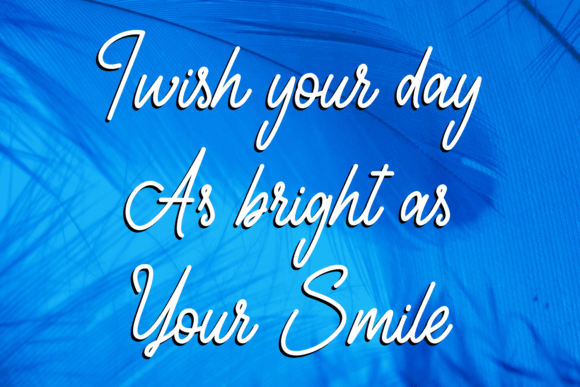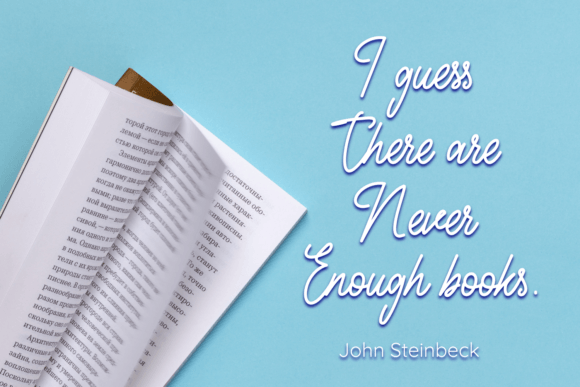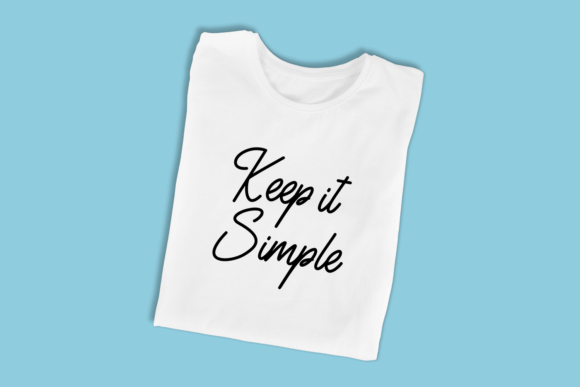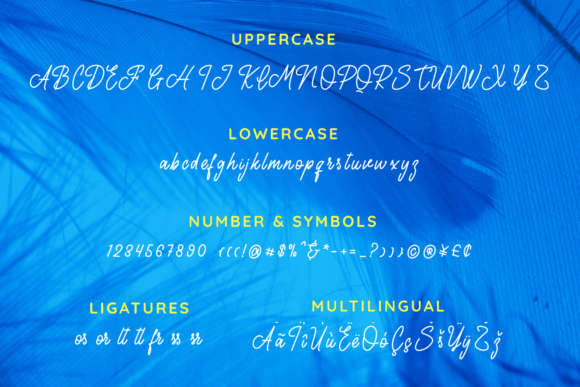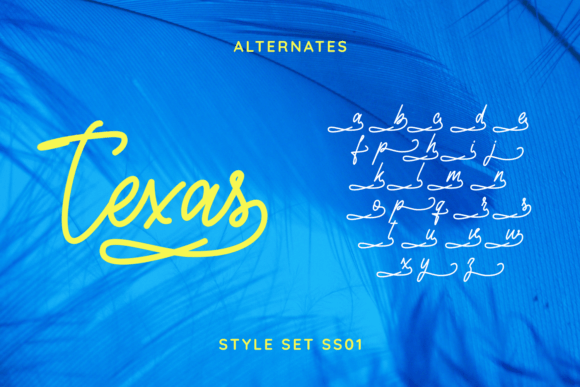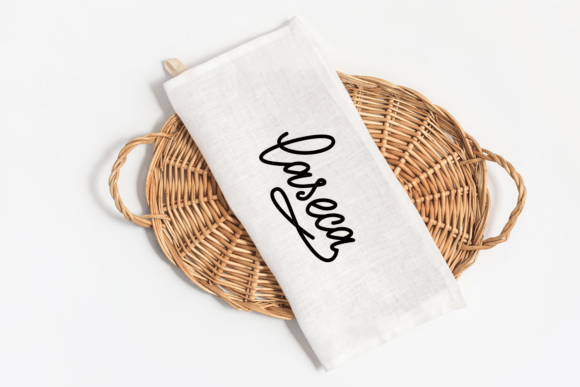
Texas Font
Casual Stylish Handwriting for Modern Design Projects
Sometimes, a design just needs a laid-back yet polished touch — and that’s exactly what the casual stylish handwriting of Texas Font delivers. It strikes the perfect balance between relaxed charm and visual refinement. Whether you’re designing for a personal brand, lifestyle blog, or creative business, this font adds a friendly, fashionable edge.
Its smooth curves and free-flowing letterforms give your work an effortlessly modern appeal.
Introducing Texas: Designed for Everyday Elegance
Texas Font was created for those who want to express style without overdoing it. As a handwritten script, it features soft strokes and casual rhythm. At the same time, it maintains a clean aesthetic that fits seamlessly into both minimal and dynamic designs.
This casual stylish handwriting font is perfect for:
• Branding for lifestyle, fashion, or beauty businesses
• Social media graphics and templates
• Personalized stationery and business cards
• Quote designs, posters, and wall art
• Custom t-shirts, mugs, and print-on-demand products
• Digital downloads like planners or templates
Its charm lies in the way it blends simplicity with personal expression.
Even better, Texas is PUA encoded, which means you can access all of the glyphs and swashes effortlessly. No complex software is needed — everything is accessible and beginner-friendly.
Why Choose the Texas Font?
There are plenty of script fonts out there, but Texas offers something uniquely refreshing. Here’s why creators love it:
• Relaxed yet elegant handwritten look
• Fully PUA encoded for complete character access
• Great readability in both small and large sizes
• Compatible with both print and digital platforms
This casual stylish handwriting font is ideal for designers and DIY creators who want to keep things light, creative, and visually appealing.
Ideal for Digital Creators and Small Business Owners
Whether you’re launching a new brand, designing social media templates, or adding flair to your Etsy listings, Texas Font helps bring your vision to life. It’s especially effective for:
• Handmade product tags
• Downloadable quote bundles
• Instagram highlight covers
• Journals and scrapbooking pages
• Personalized gifts and packaging
With its fun and flexible vibe, it adapts beautifully to different themes and platforms.
Texas Font is more than just handwriting — it’s personality on the page. This casual stylish handwriting typeface helps you stand out without shouting. It adds style, energy, and friendliness to your work, no matter the occasion.